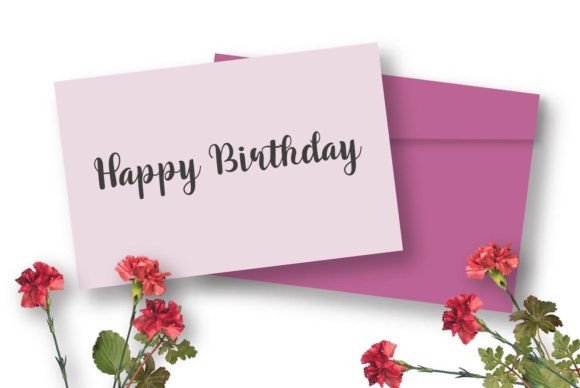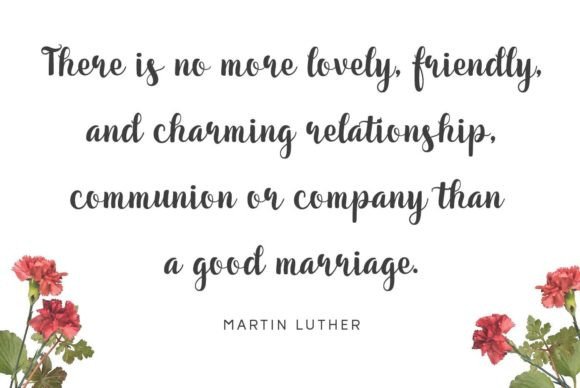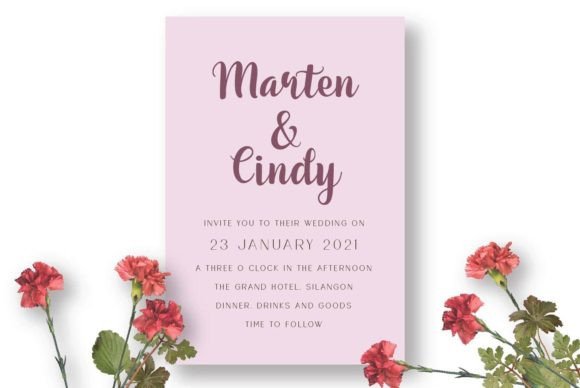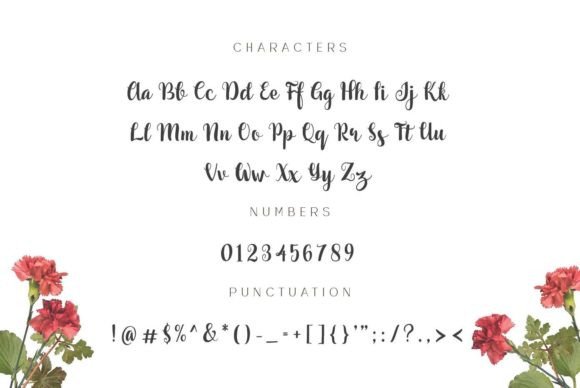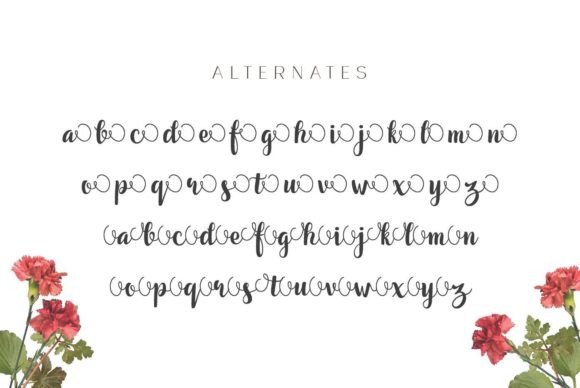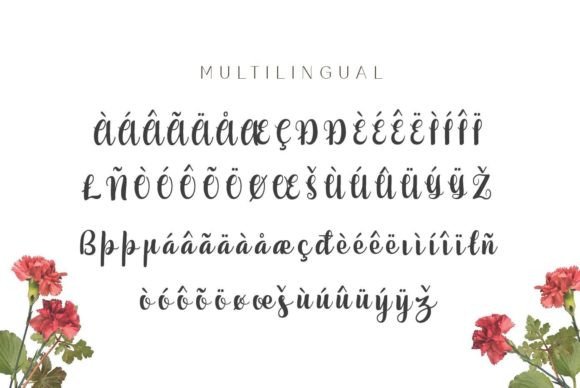
Introduction to Jelantik Font
Remember the thrill of finding the perfect font for a creative project? It’s like stumbling upon a hidden treasure that elevates your design from ordinary to extraordinary. For designers and crafty enthusiasts, the search for the ideal typography can be a daunting task, but what if we told you that the treasure is within reach?
Enter the Jelantik Font, a delicate and well-rounded handwritten font that’s perfect for adding an authentic touch to your designs. Whether you’re creating wedding invitations, birthday cards, or personal branding materials, this font is sure to make your designs stand out. With its high-quality design and transparent background, the Jelantik Font is a valuable resource for any designer looking to take their projects to the next level.
Key Features of Jelantik Font
- High-quality font with a unique and modern design, suitable for a variety of applications, including logos, branding, and graphics.
- Transparent background, allowing for seamless integration with other design elements and providing a clean, minimalist look.
- Designed to be highly legible at various font sizes, making it an excellent choice for both small and large-scale designs.
- Unique characteristics include a bold and playful style, with intricate details and flourishes that add visual interest to any design.
Honest Review: Jelantik Font
I recently stumbled upon the Jelantik Font, a free download that’s been making waves in the design community. As a designer, I was excited to dive in and see what it had to offer.
- High-quality design: The Jelantik Font has a clean and modern aesthetic that makes it perfect for creative projects.
- Wide range of uses: The font can be used for both web and print design, making it a versatile addition to any design toolkit.
- Limited font styles: While the Jelantik Font has a modern feel, it’s limited to a single style, which may not be suitable for all design projects.
- No advanced features: Compared to other fonts, the Jelantik Font lacks advanced features like ligatures or contextual alternates.
Overall, I’d say the Jelantik Font is a solid addition to any design resource collection. While it may have its limitations, it’s a high-quality font that’s perfect for creative projects and free downloads. I’d definitely recommend giving it a try!
Common Use Cases for Jelantik Font
The Jelantik Font is commonly used in creative projects, such as logos, posters, and business cards. It is also used in digital designs, such as social media graphics and website headers.